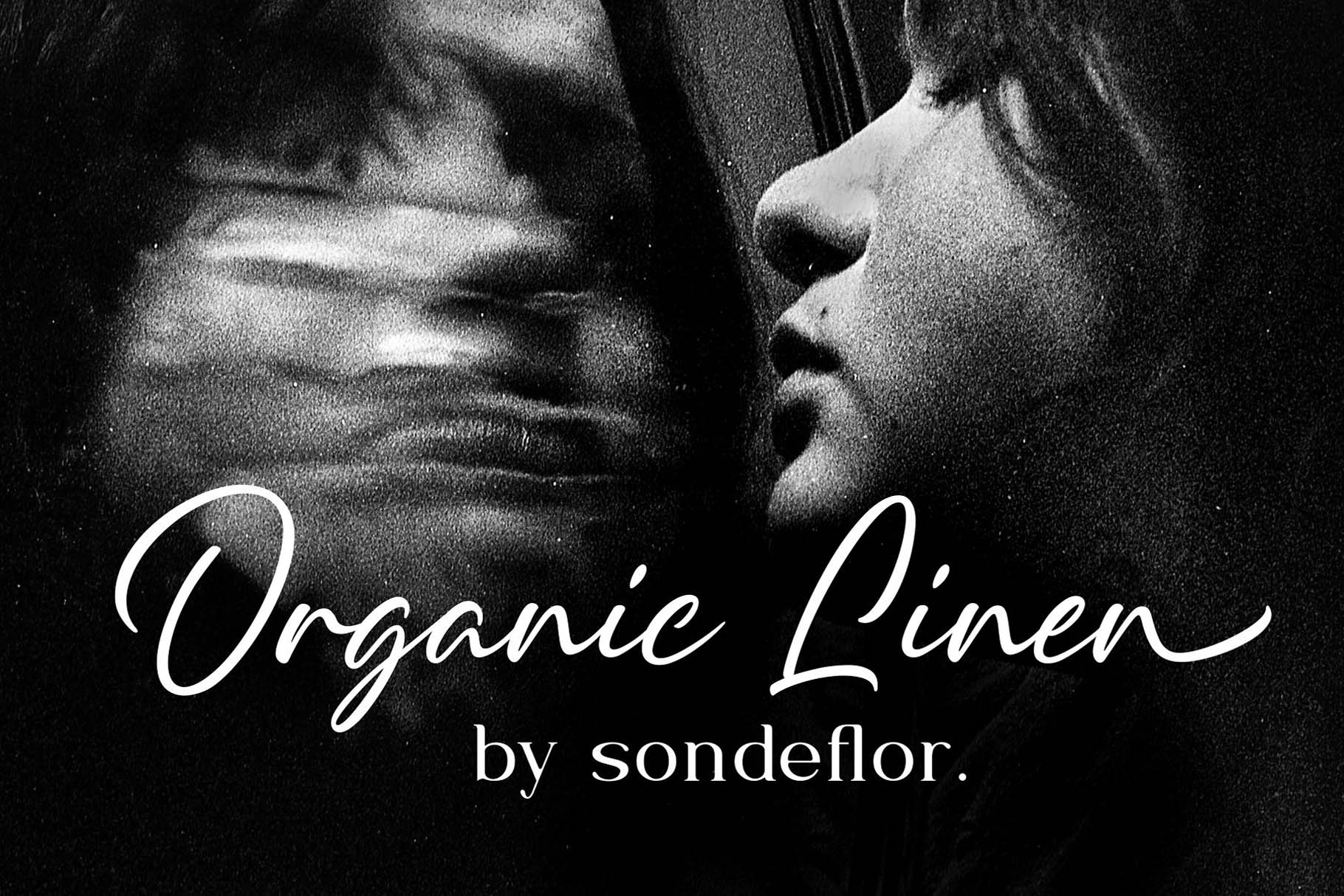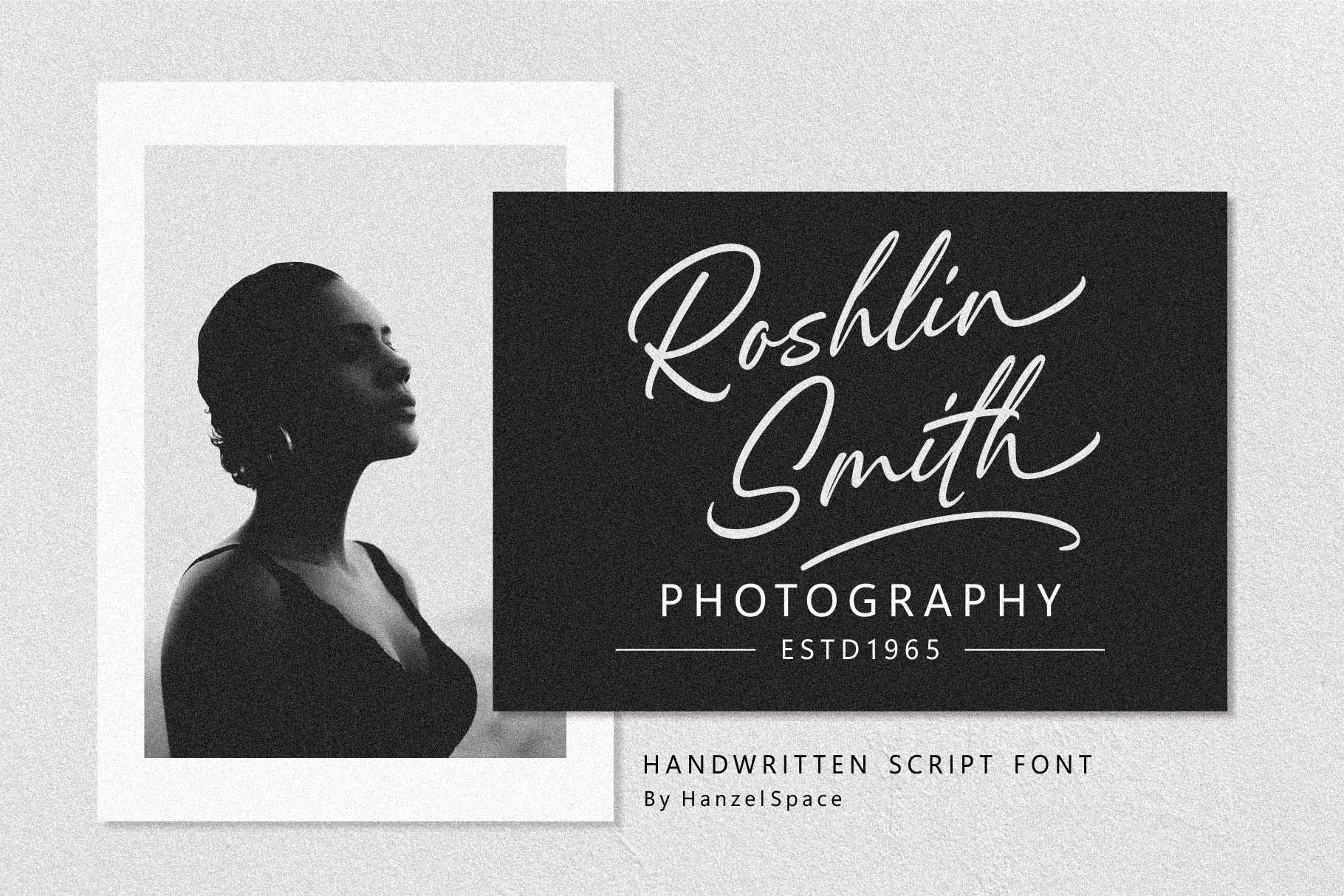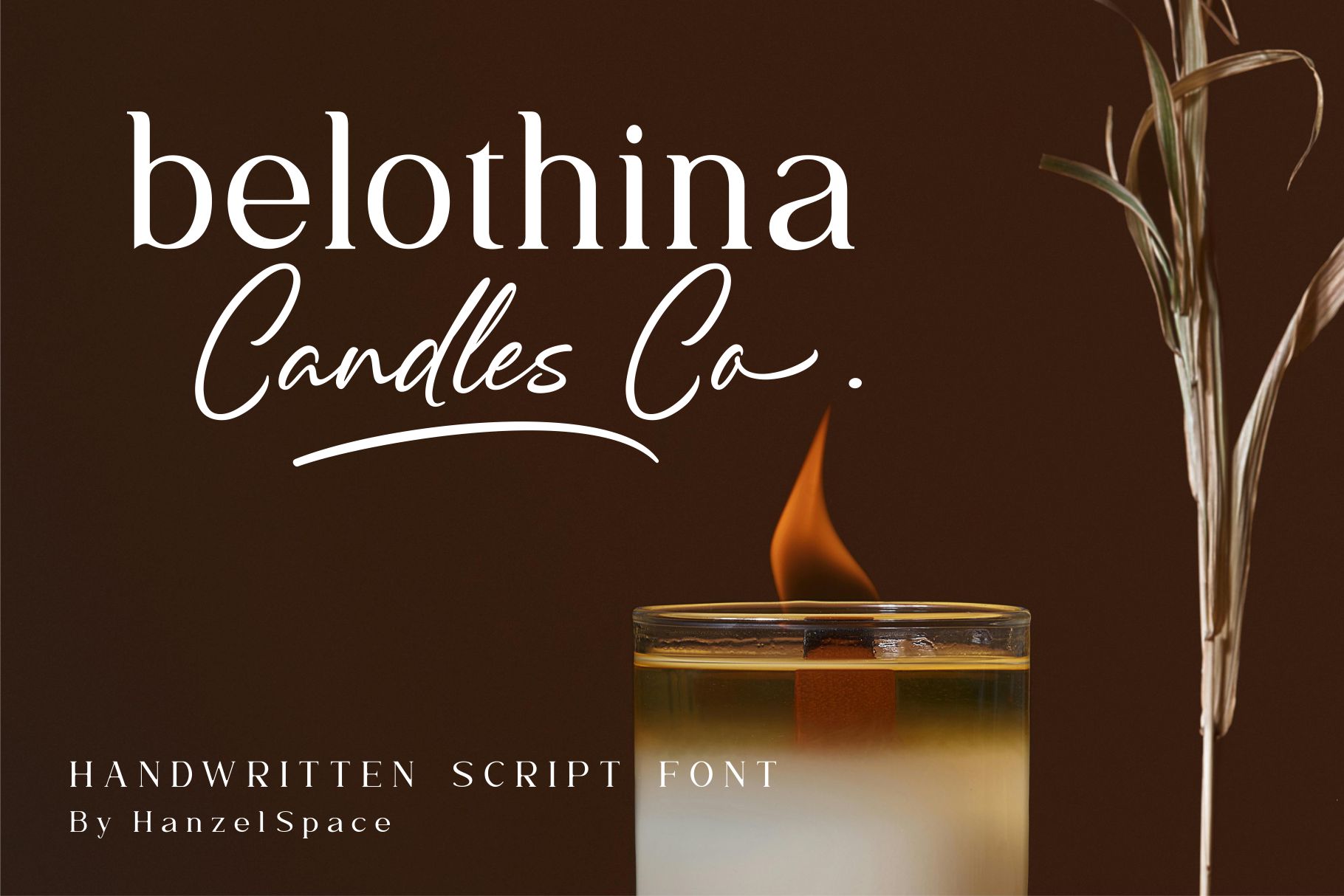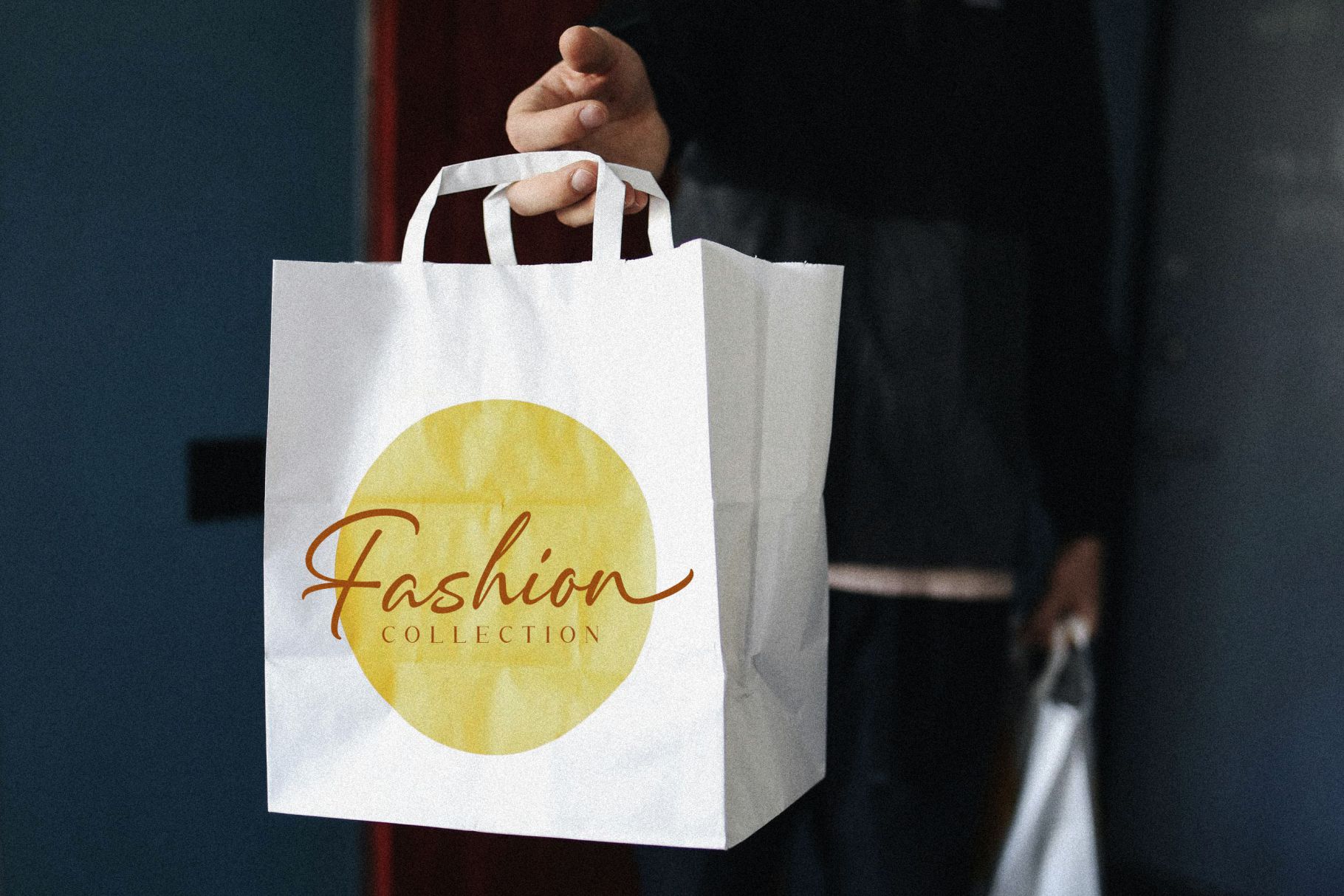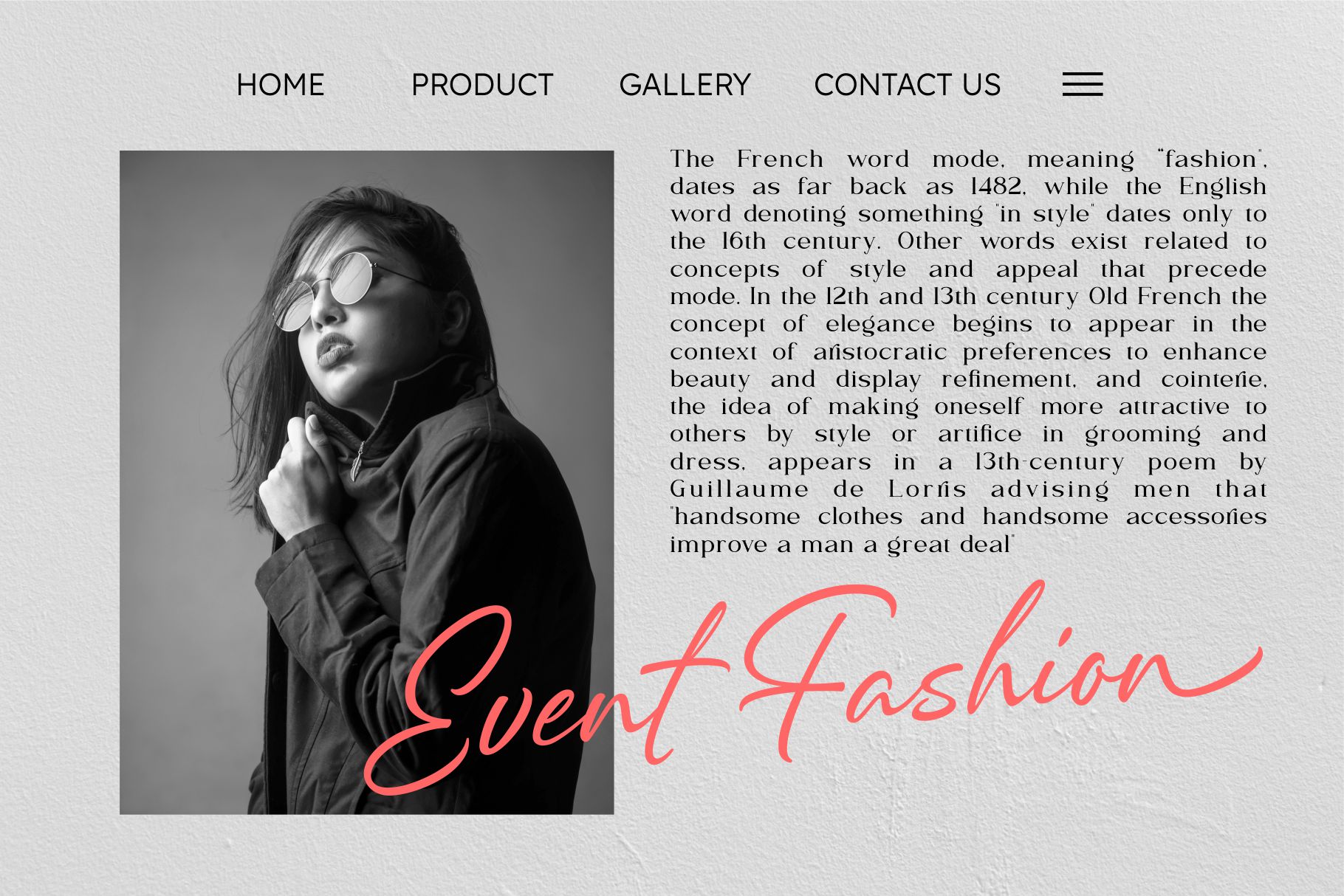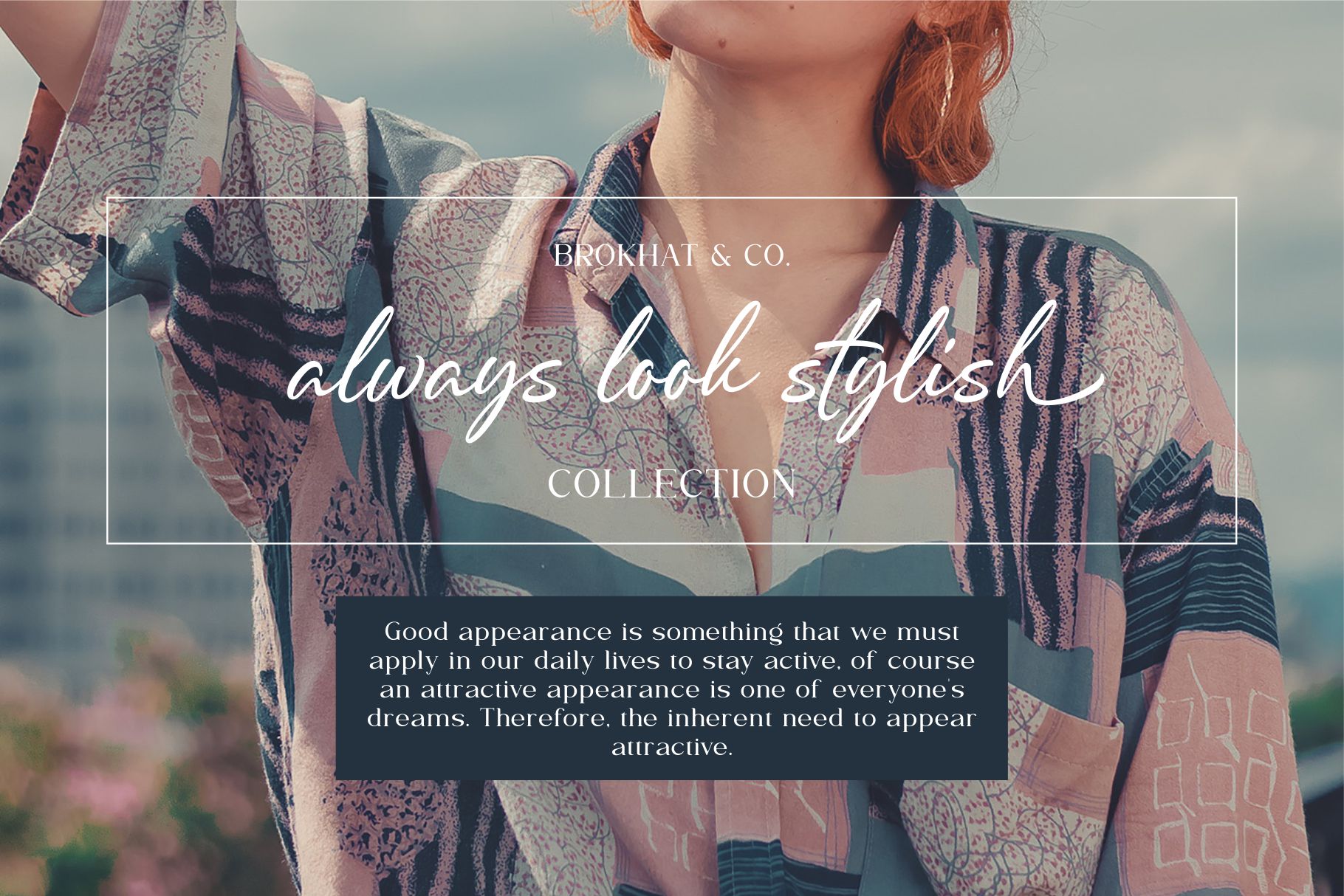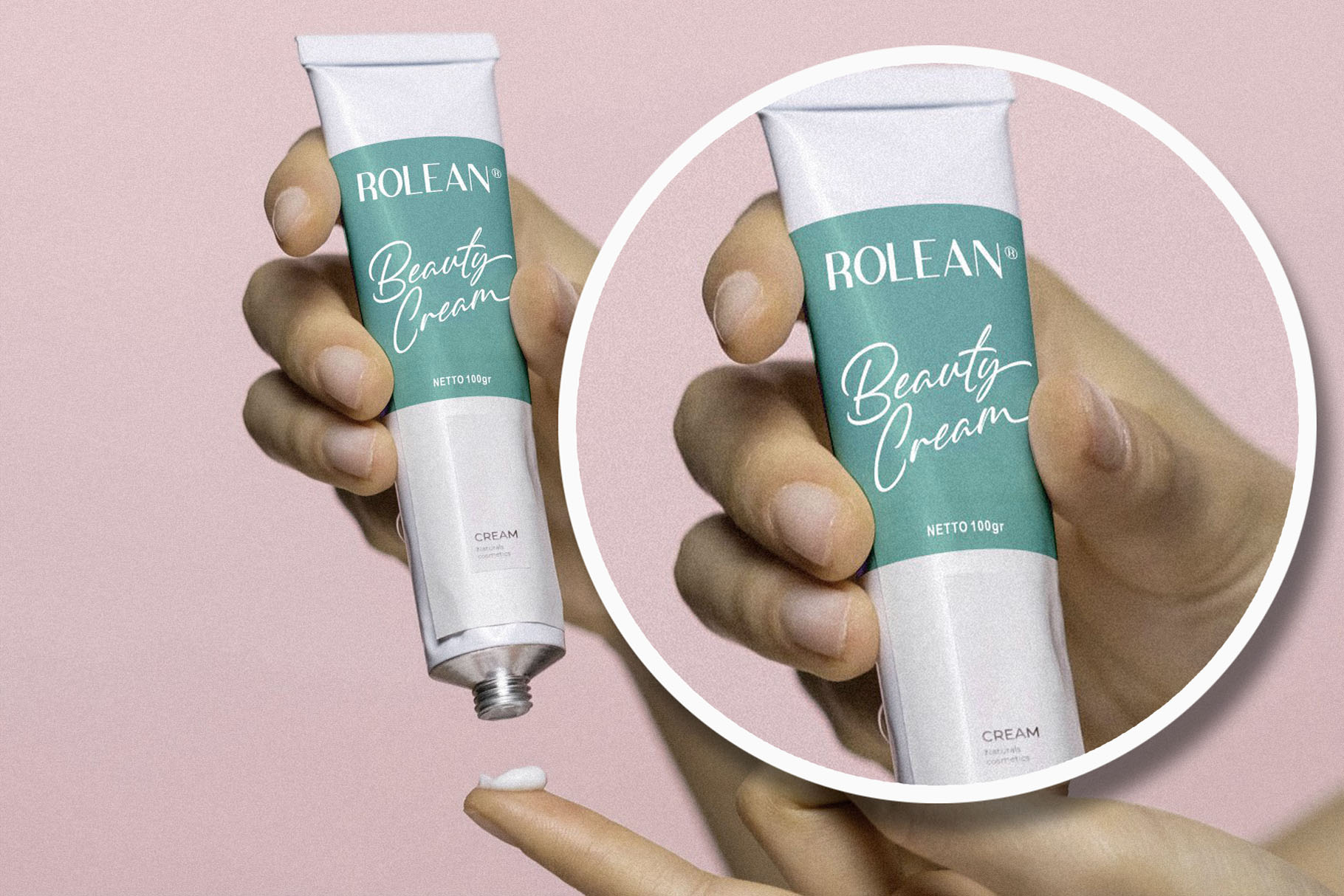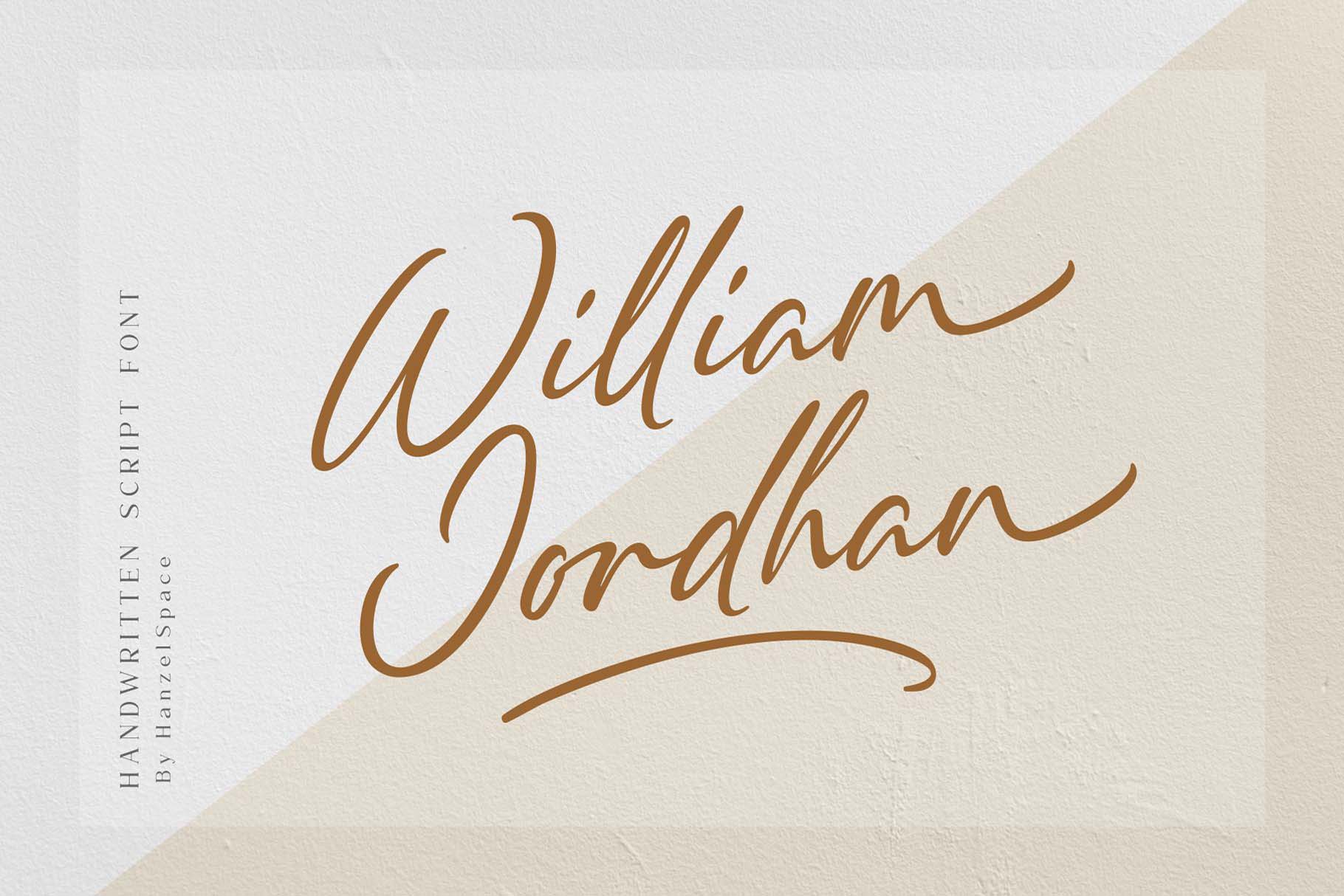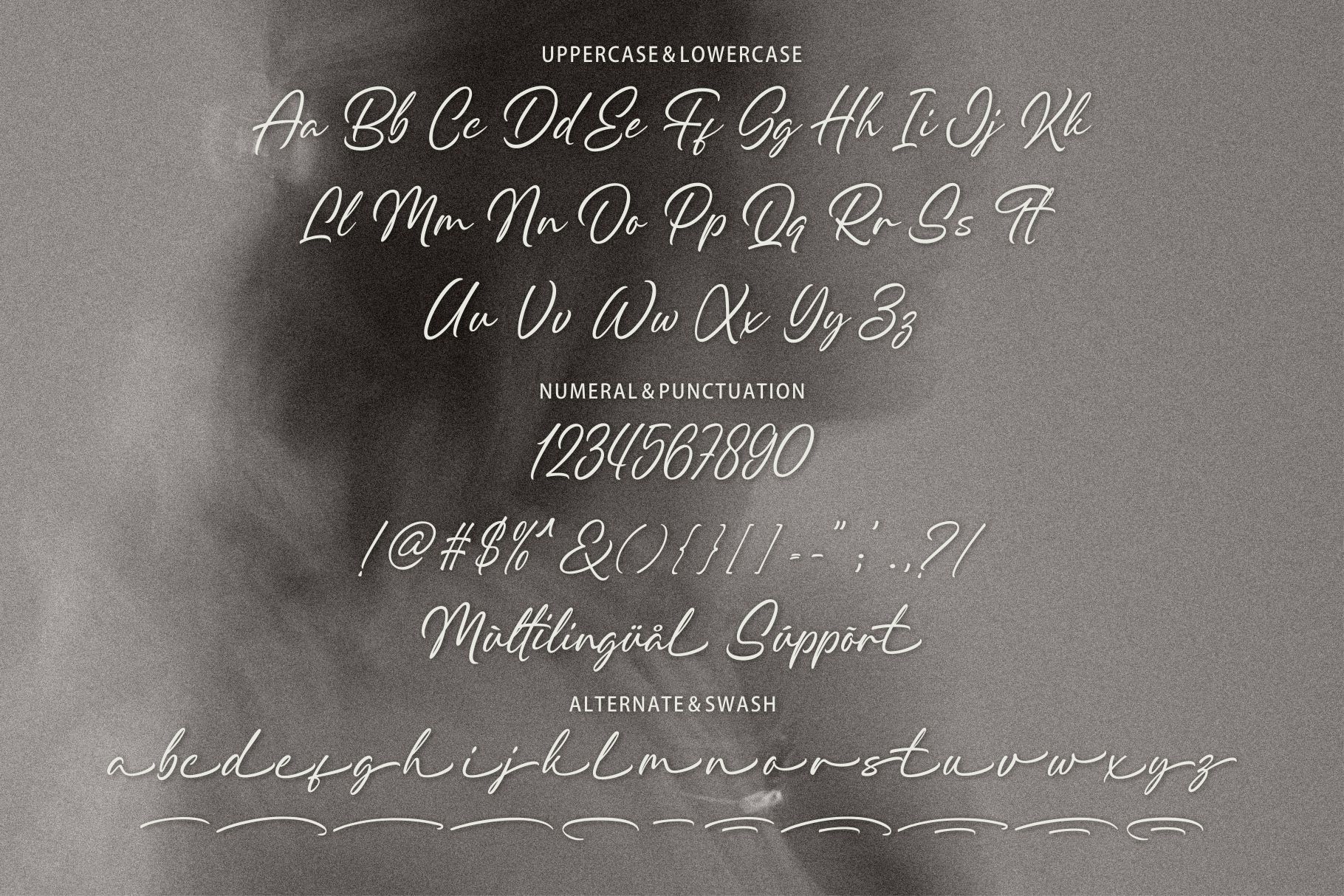
- Fasthin – Handwritten Script Font
Proudly present Fasthin – Handwritten Script Font that has own unique style & modern look. This typeface is perfect for an elegant & luxury logo, book or movie title design, fashion brand, magazine, clothes, lettering, quotes, and so much more.
Features:
- Uppercase & Lowercase
- Numerals & Punctuation
- Ligatures
- Multilanguage Supports
- Extra set of ending swashed lowercase